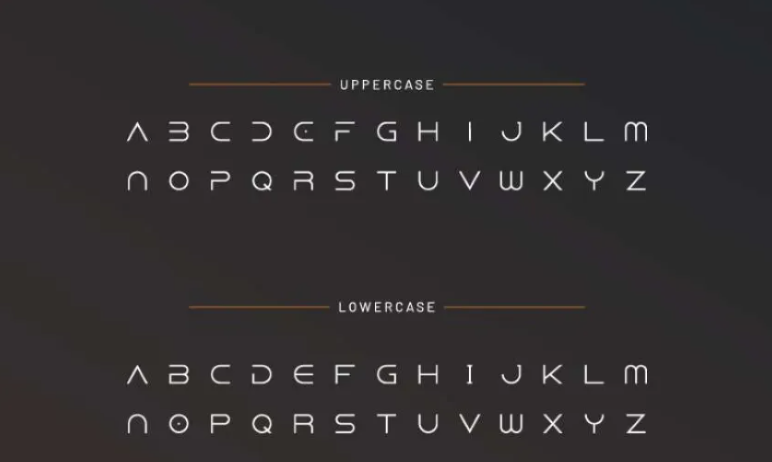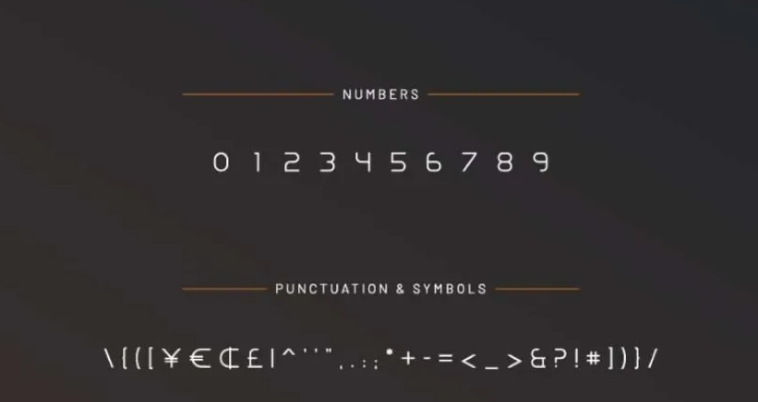
The Dune Rise Font is modern in its use as an element that affects branding, readability, and impact. One particular font that has captured the attention of designers, gamers, and science fiction fans is the Dune Rise Font. This futuristic and cinematic typeface derives from Dune and many other space-related visuals.
The Dune Rise Font is useful in high-tech branding projects, science fiction movie posters, and captivating social media designs as it adds a modern, bold layer to the work.
What is Dune Rise Font?
The Dune Rise Font is a bold typeface inspired by sci-fi technological features. Dune Rise features areas of technology and space, and therefore, is applied in a lot of games, film posters, and even digital content.
There are other official fonts that are used in the Dune franchise; however, Dune Rise has become a popular fan-made version for its portrayal of maximum detail and is favored by many designers looking for a modern and futuristic feel. Dune Rise is a popular alternative.
Features of Dune Rise Font
The Dune Rise Font features a bold, futuristic design with sleek letterforms, making it perfect for sci-fi, tech, and cinematic projects.
- Futuristic and Cinematic Design – The font is inspired by sci-fi and high-tech themes, making it ideal for futuristic projects.
- Bold and Elegant Letterforms – Features clean, structured typography that ensures readability and impact.
- Versatile Usage – Suitable for branding, UI/UX, game design, and digital marketing.
- Multiple Styles & Weights – Some versions come in bold, regular, and outlined styles for design flexibility.
- Multilingual Support – Depending on the version, it may include Latin, Cyrillic, and other character sets.
Applications of Dune Rise Font
The Dune Rise Font is ideal for sci-fi branding, movie posters, gaming titles, UI/UX design, and futuristic social media graphics, adding a bold and modern touch to any project.
- Branding & Logo Design – Ideal for technology startups, gaming companies, and sci-fi brands looking for a futuristic aesthetic.
- Movie Posters & Gaming Titles – Frequently used in sci-fi films, space-themed games, and fantasy book covers.
- UI/UX and Web Design – Enhances futuristic website themes, app interfaces, and dashboard designs.
- Social Media & Content Creation – Creates eye-catching YouTube thumbnails, digital banners, and futuristic graphics.
- Merchandise & Print Media – Used on T-shirts, stickers, posters, and sci-fi-themed promotional items.
Conclusion:Dune Rise Font
Dune Rise Font is ideal for all designers looking to enhance the futuristic and cinematic appeal of their projects. Whether it is sci-fi branding, movie posters, UI/UX, or even social media graphics, this font is guaranteed to make your designs appear modern.